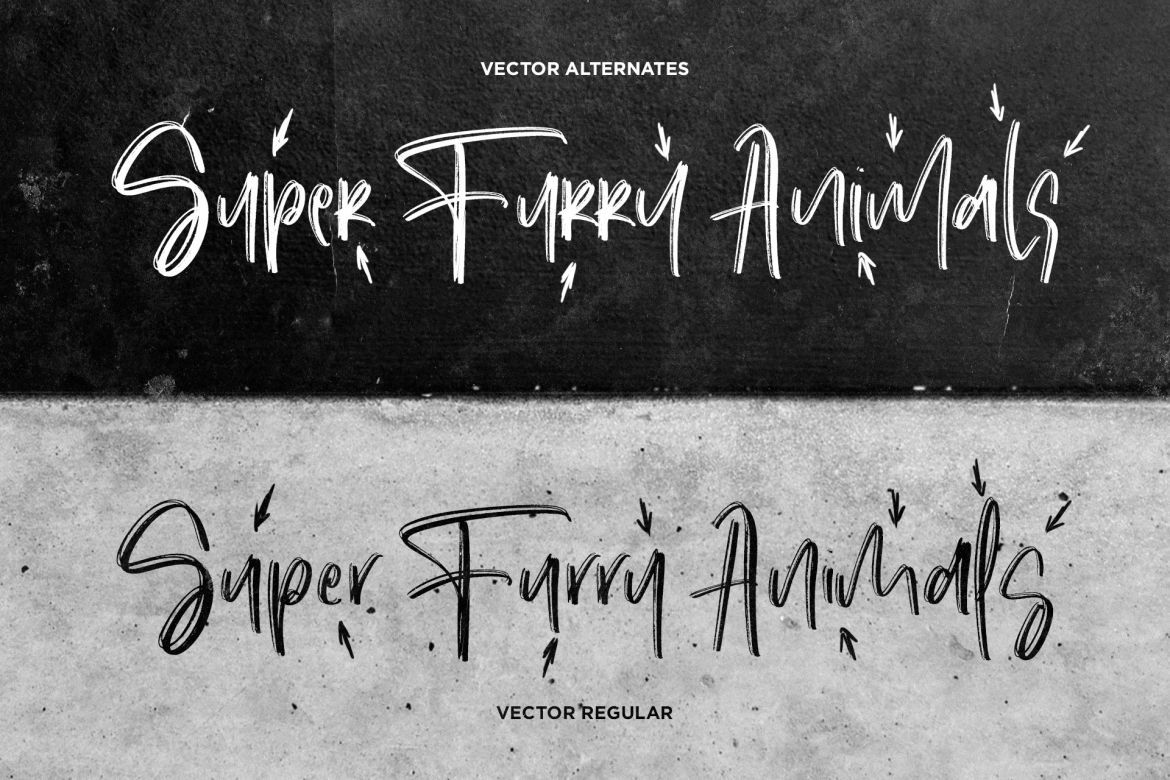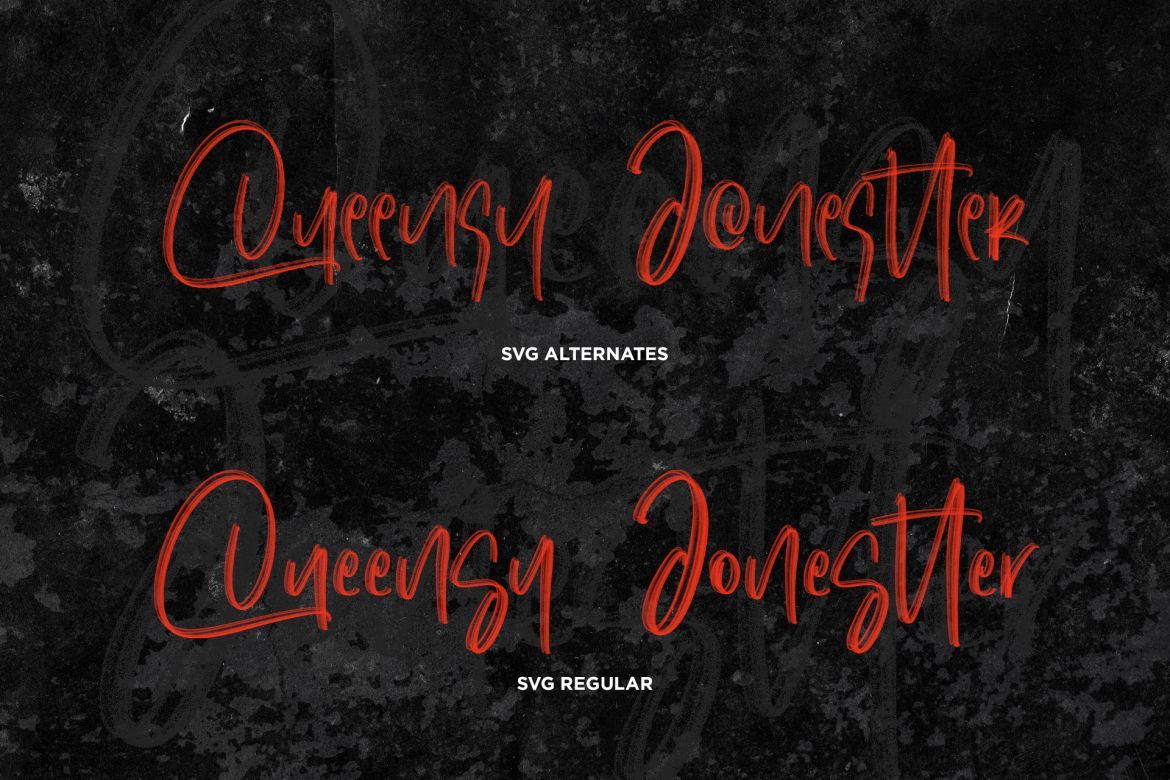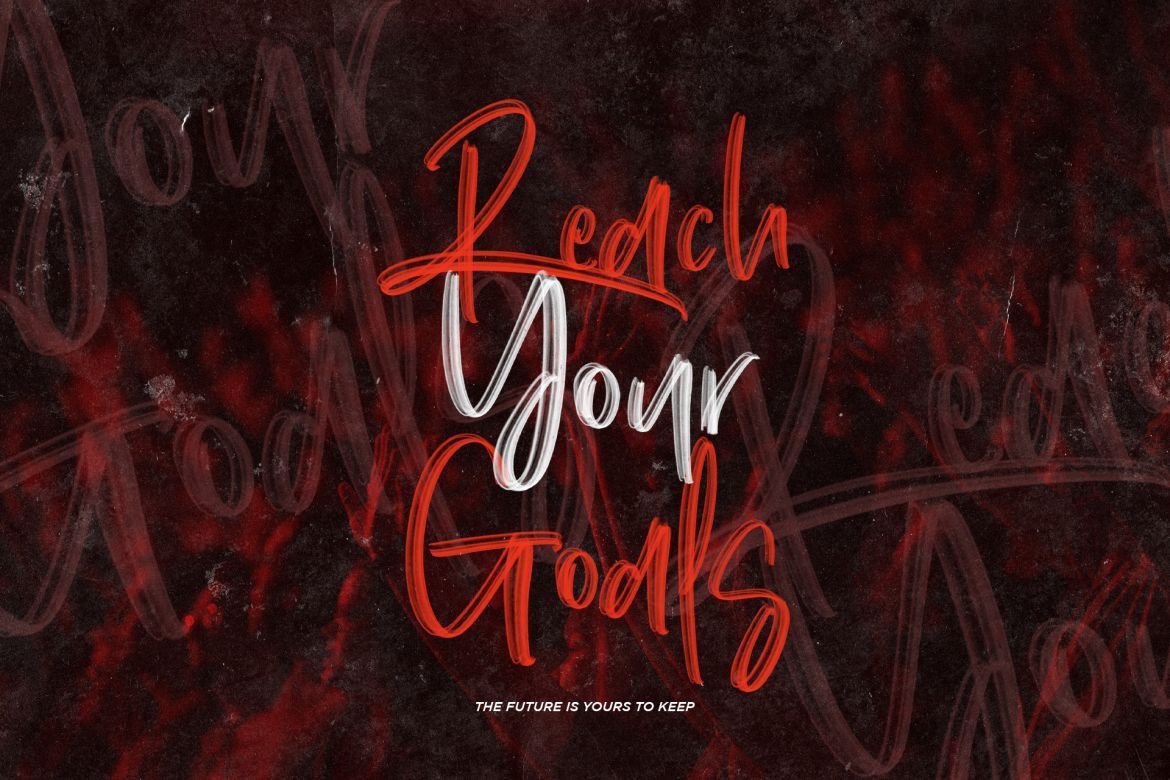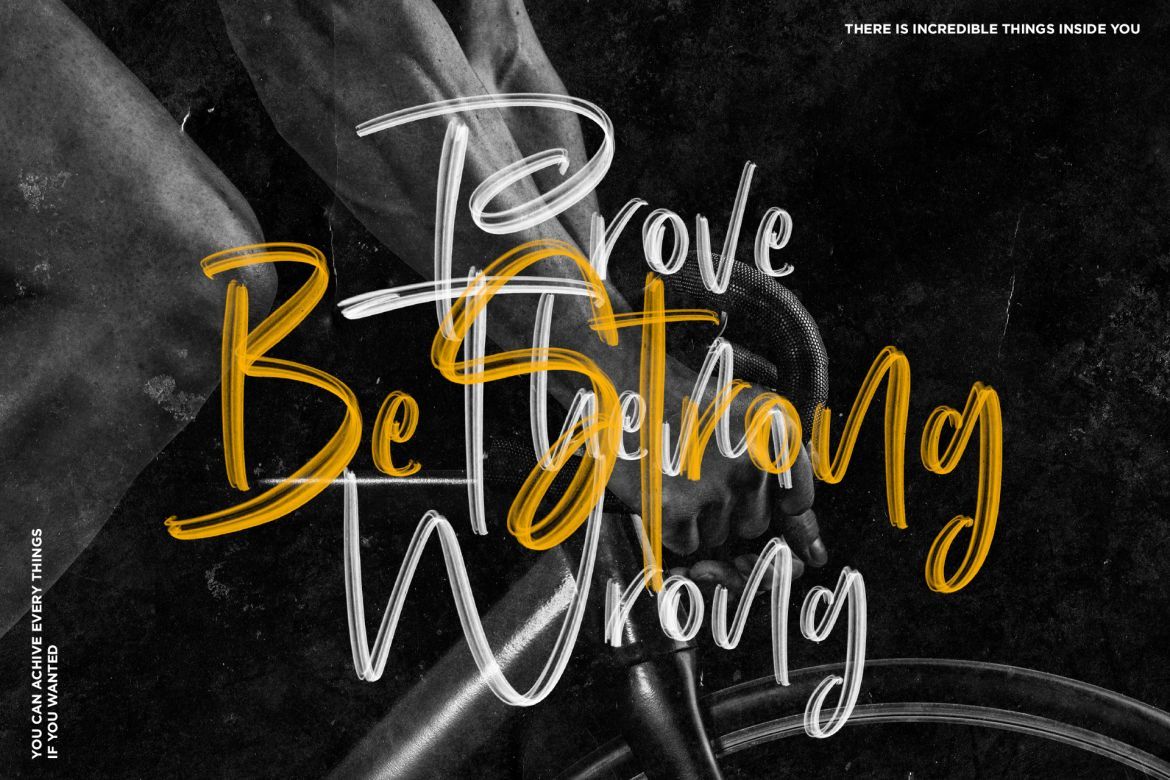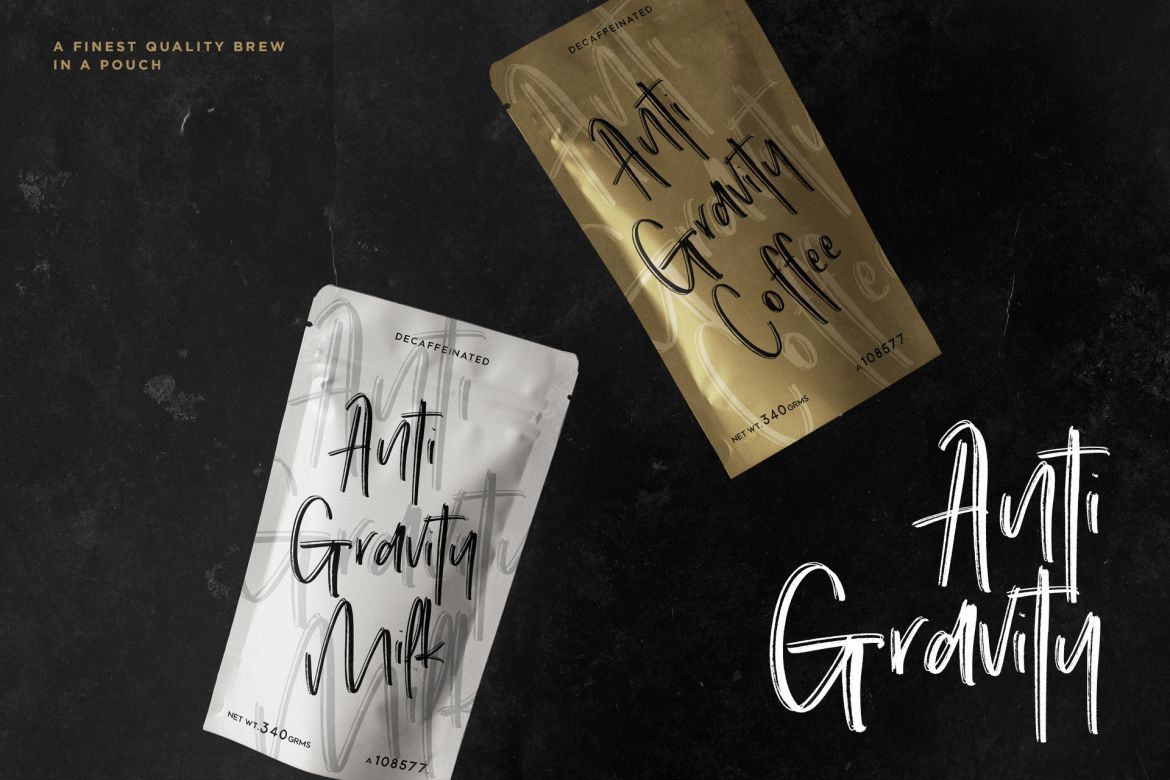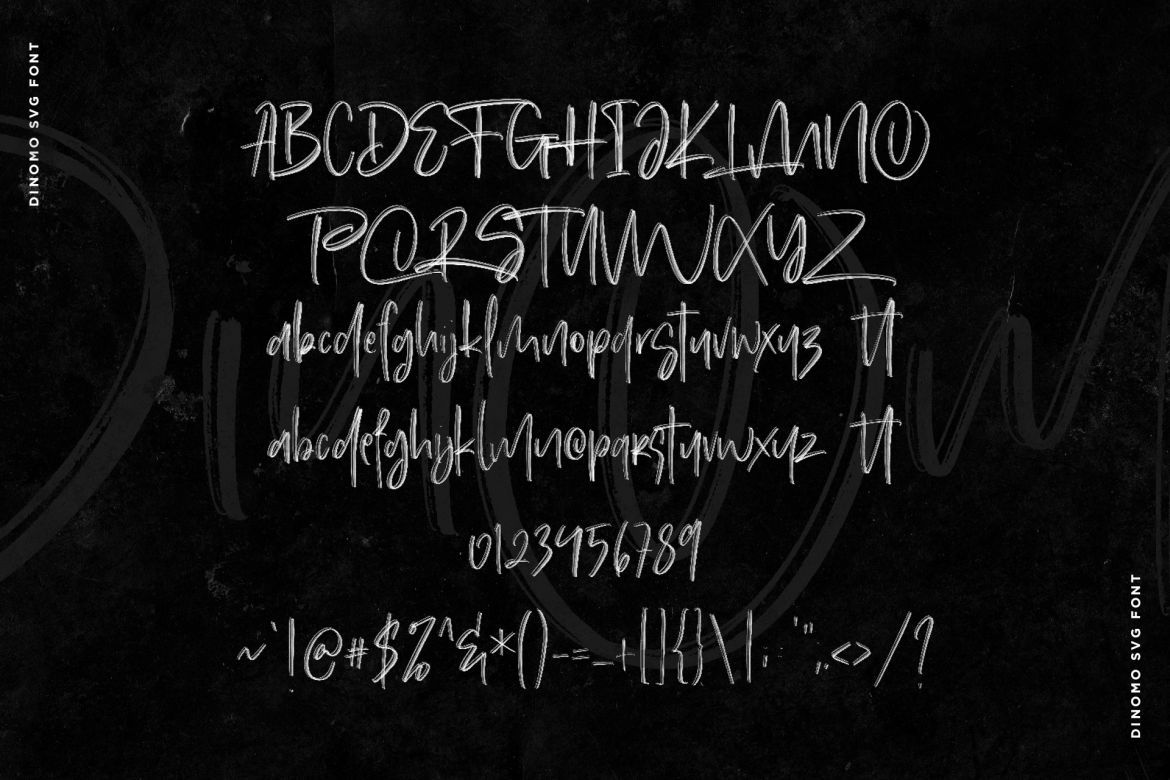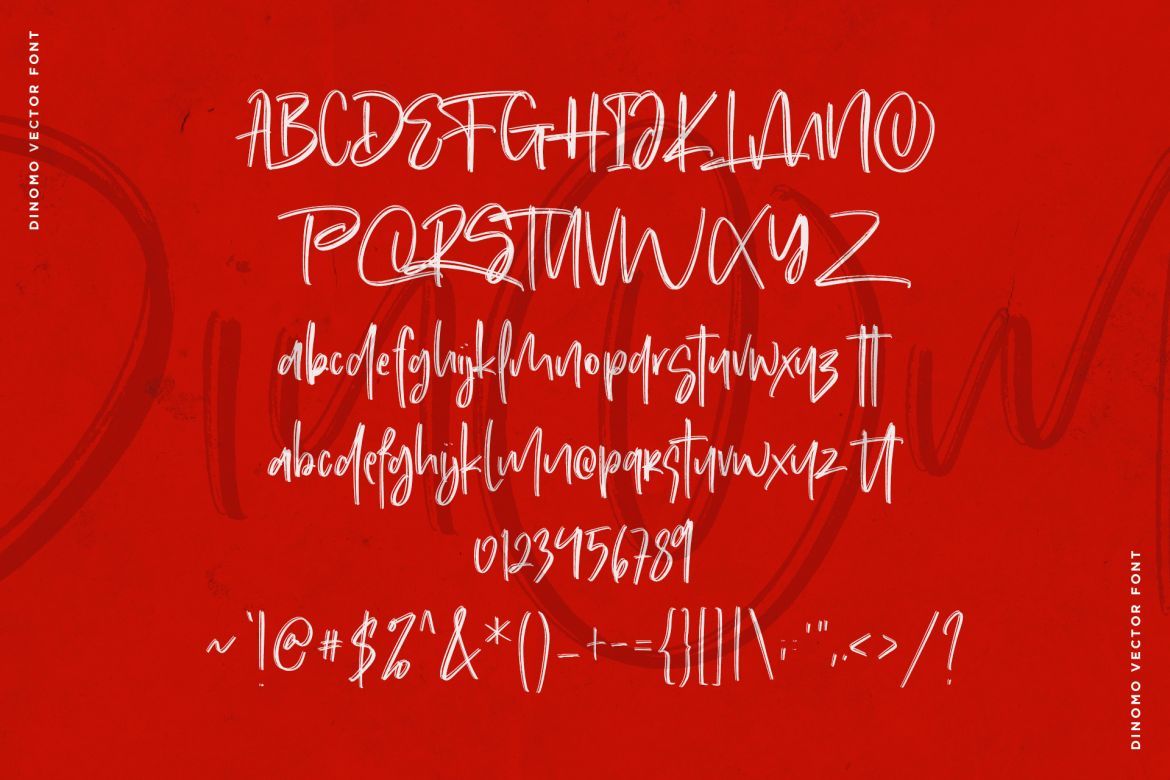
Dinomo SVG Brush Font
Give your designs an authentic brush handcrafted feel. "Dinomo" is perfectly suited to signature, stationery, logo, typography quotes, magazine or book cover, website header, clothing, branding, packaging design and more.